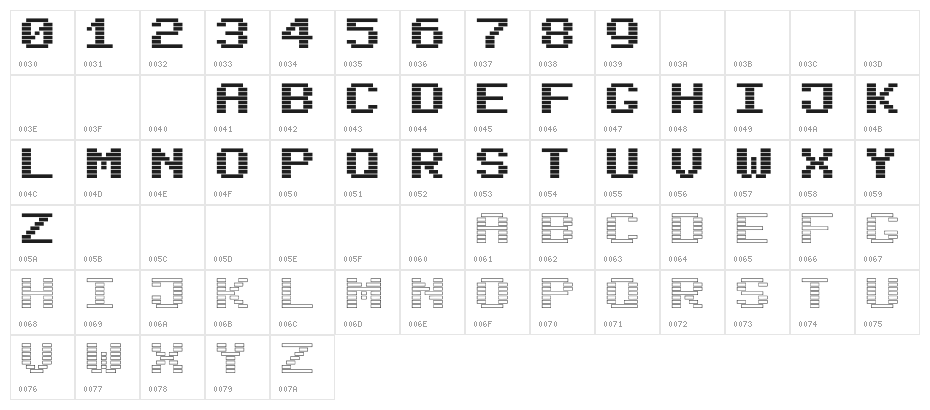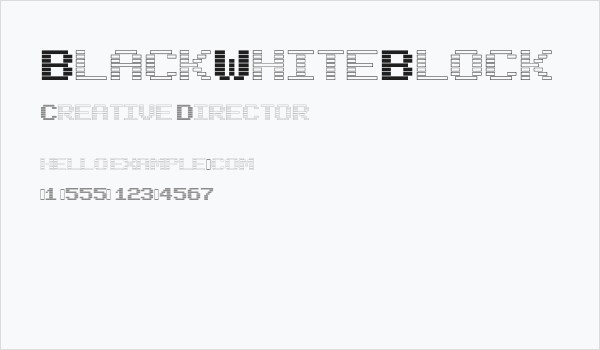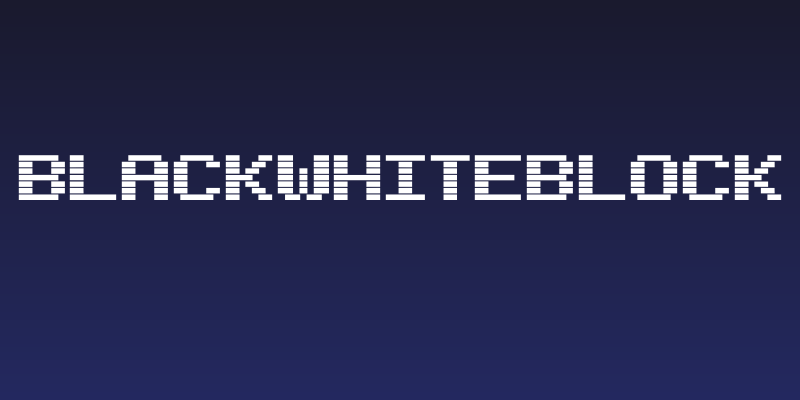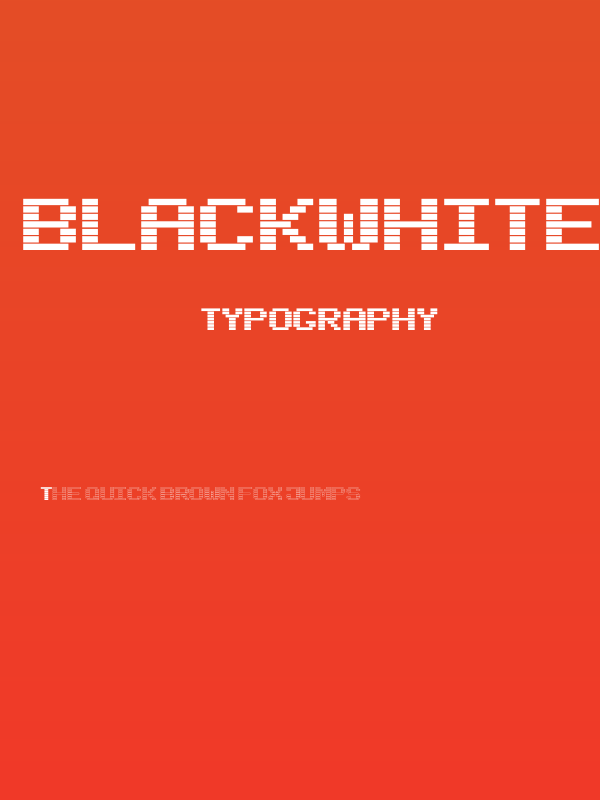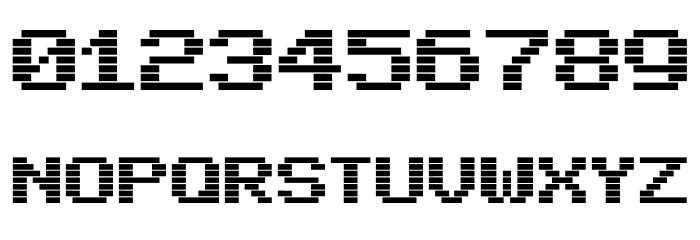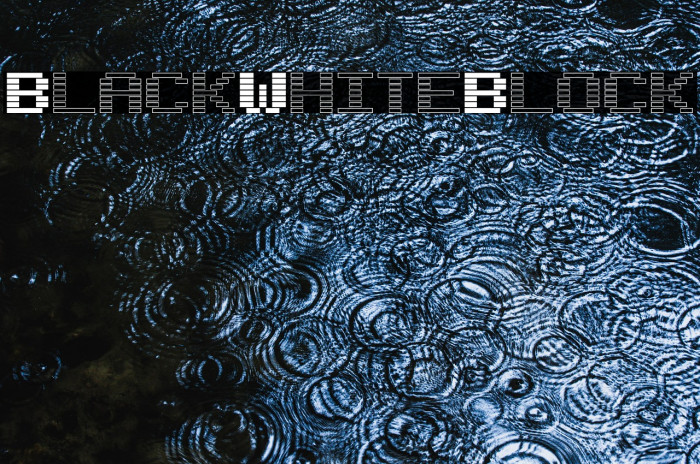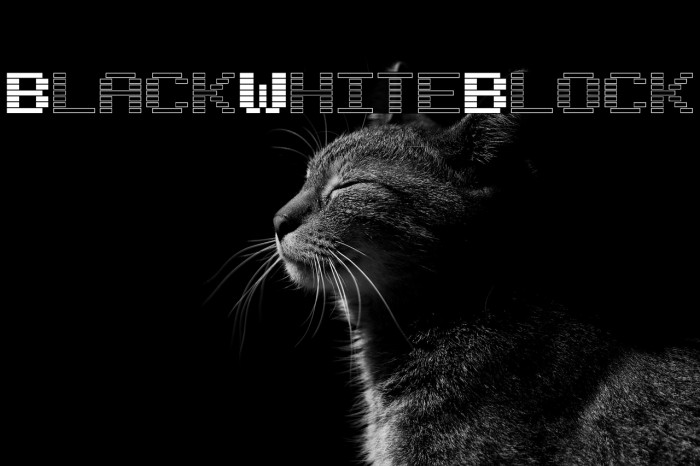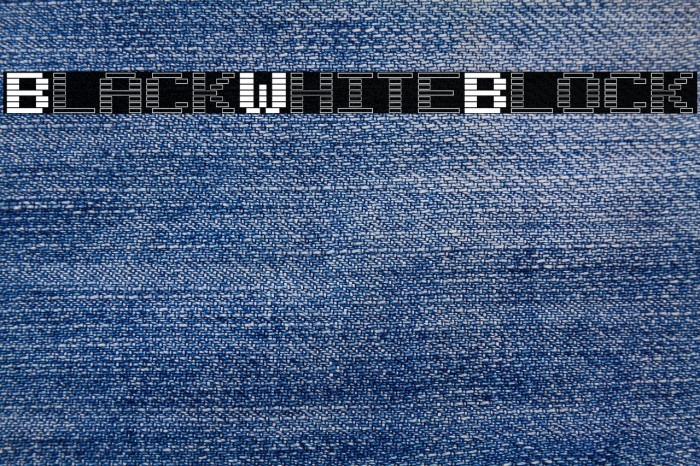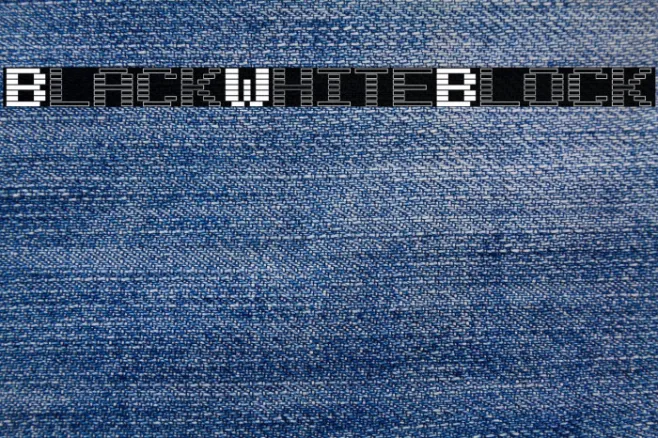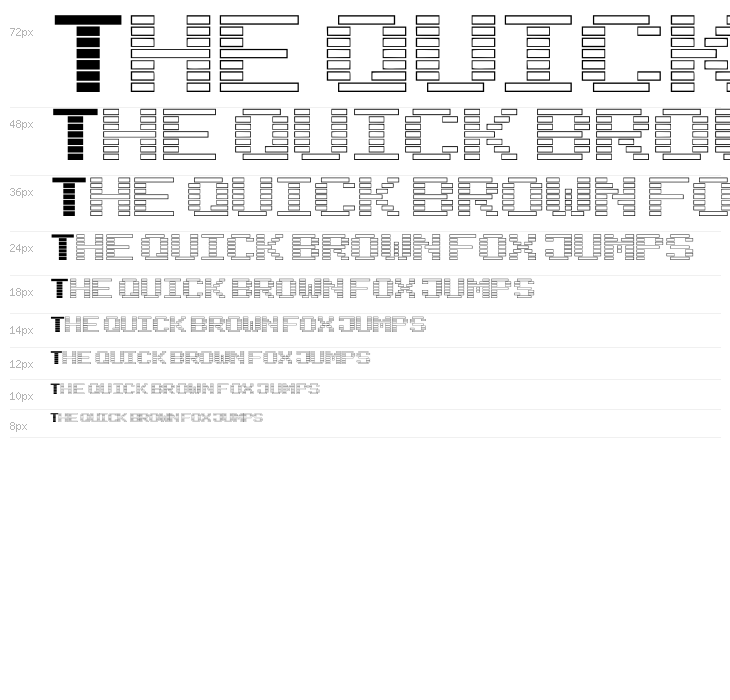
BlackWhiteBlock Font
BlackWhiteBlock Description
This font features a bold, blocky design with a distinctive striped pattern that alternates between black and white. The uppercase letters are constructed with horizontal lines, creating a visually striking effect that is both modern and industrial. The numbers follow the same pattern, maintaining consistency across the character set. The font's geometric structure and high contrast make it stand out, ideal for attention-grabbing headlines or artistic projects. Its unique style is reminiscent of digital or pixel art, offering a contemporary twist on traditional block lettering.